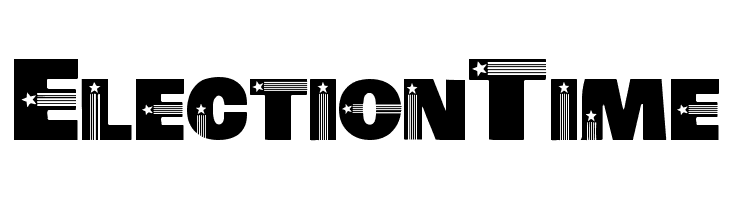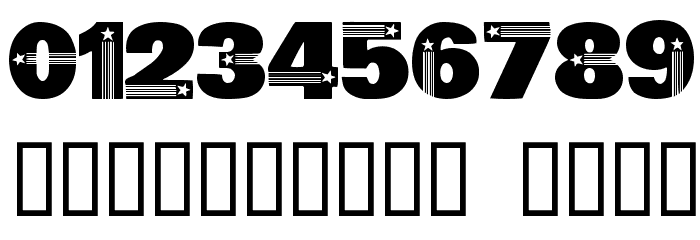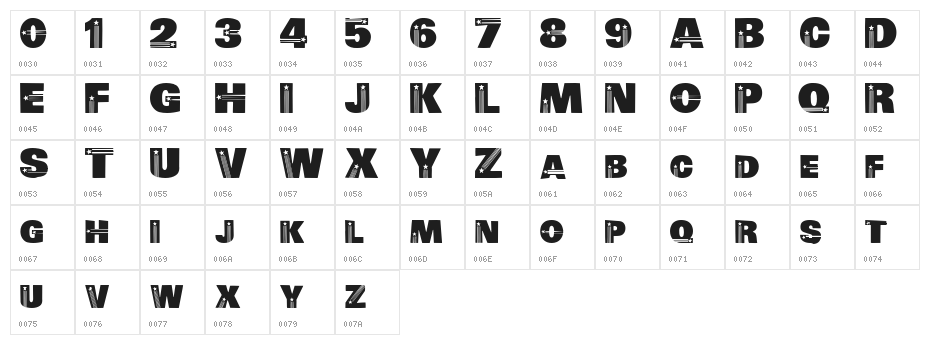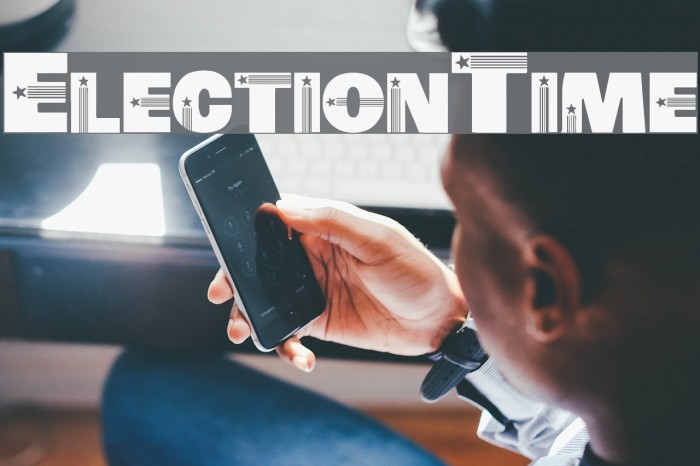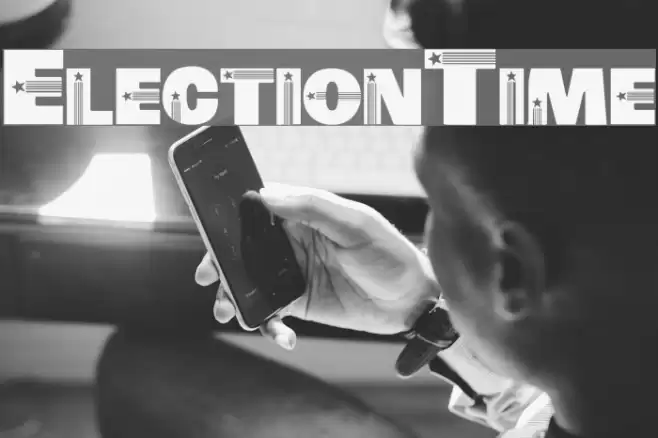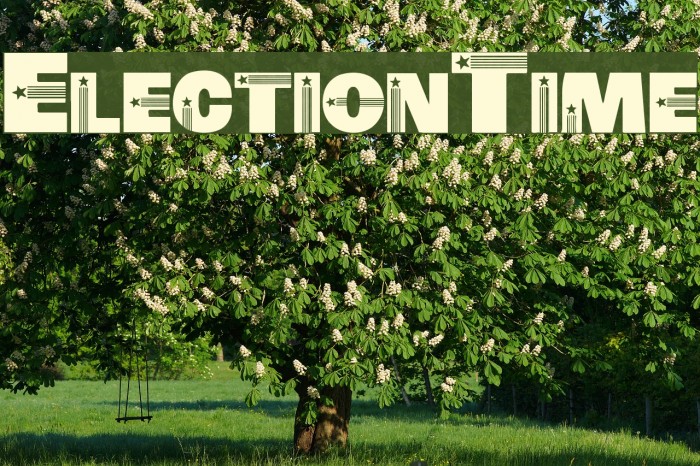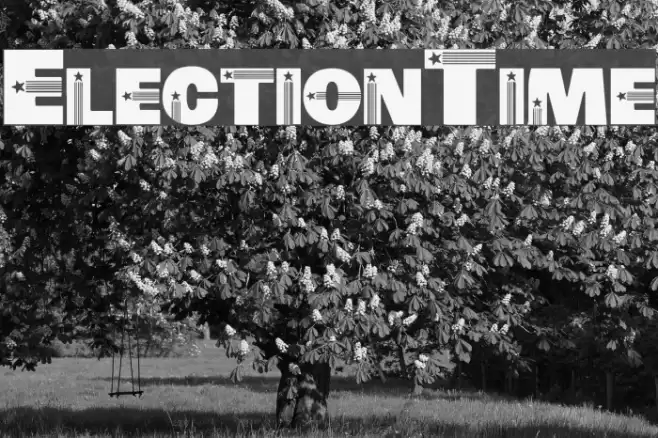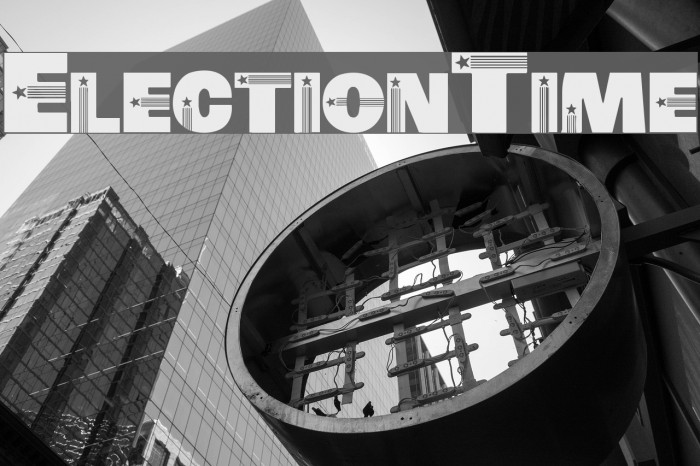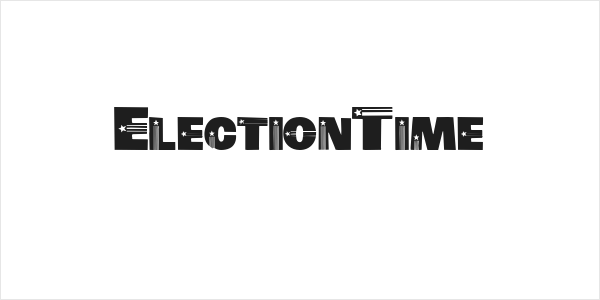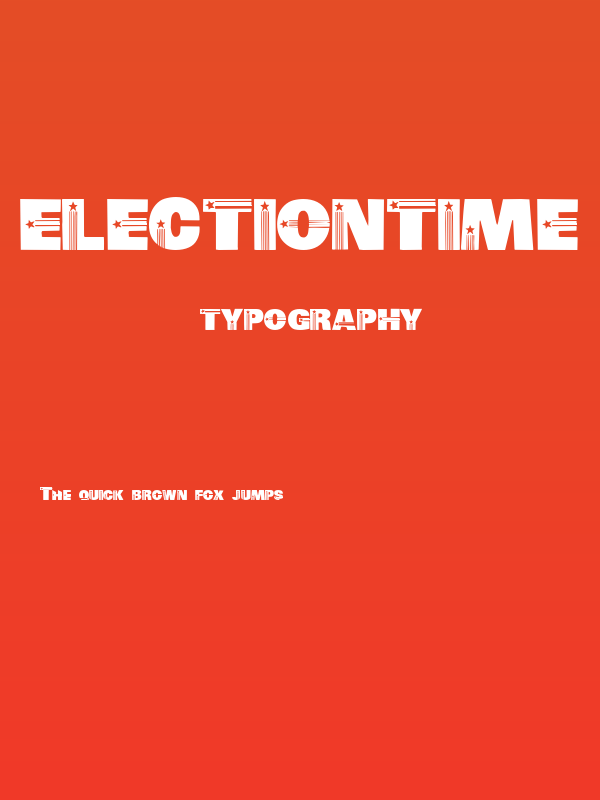
ElectionTime Font
ElectionTime Description
This bold and decorative font features a patriotic theme with stars and stripes integrated into the design of each character. The uppercase letters are robust and eye-catching, making them ideal for impactful headlines. The numbers and special characters maintain the same thematic elements, ensuring consistency across all text. The font's unique style is reminiscent of American iconography, making it suitable for projects that require a strong, nationalistic aesthetic.
| Use Case | Headlines, Posters, Banners |
| Proposed Projects | This font is perfect for election campaigns, patriotic posters, banners, and any design that requires a strong, nationalistic theme. |